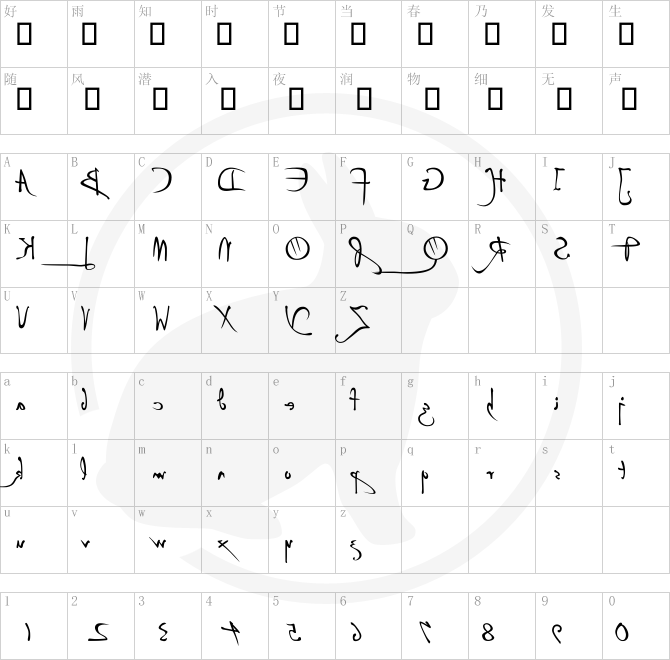
- Font Name:P22 Da Vinci Backwards
P22-Da-Vinci-Backwards.ttf is a very beautiful artistic font, P22-Da-Vinci-Backwards.ttf is widely used in the design and printing of various books and pictures,P22-Da-Vinci-Backwards.ttf has a strong visual impact,P22-Da-Vinci-Backwards.ttf is a commonly used font in newspapers, magazines and books, and is used in posters, e-commerce Poster design, store design, logo design, font design and other fields.P22-Da-Vinci-Backwards.